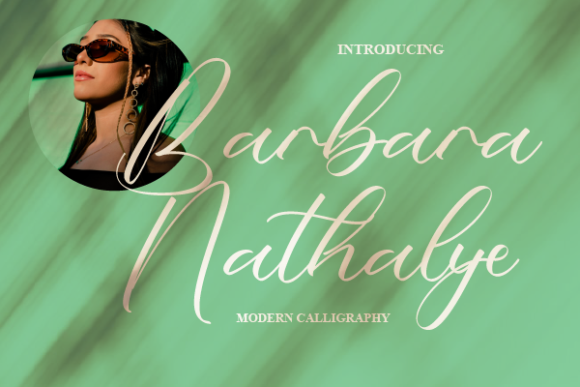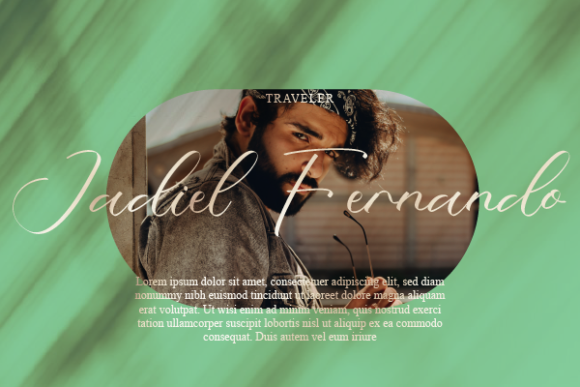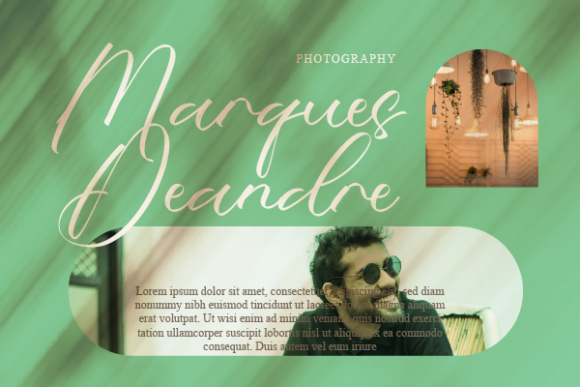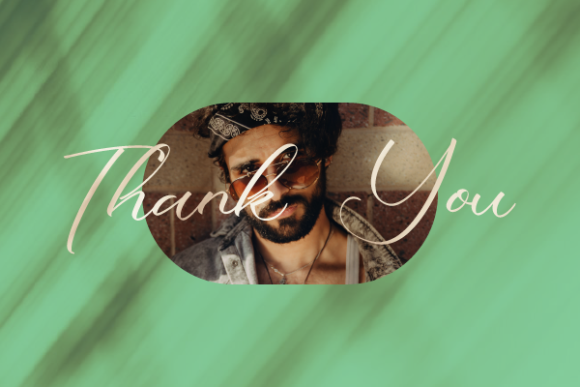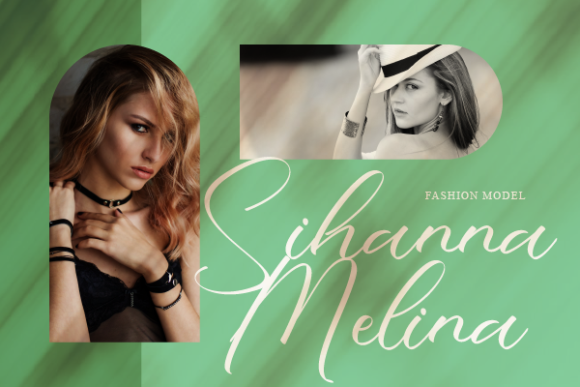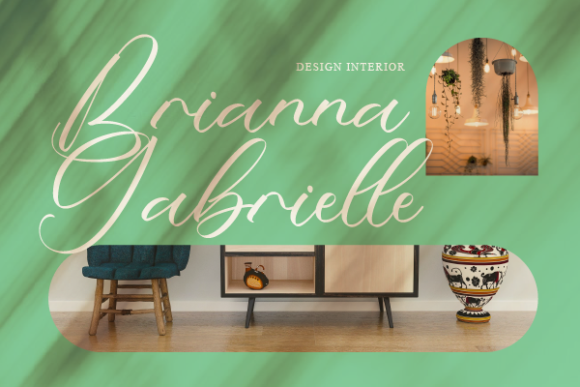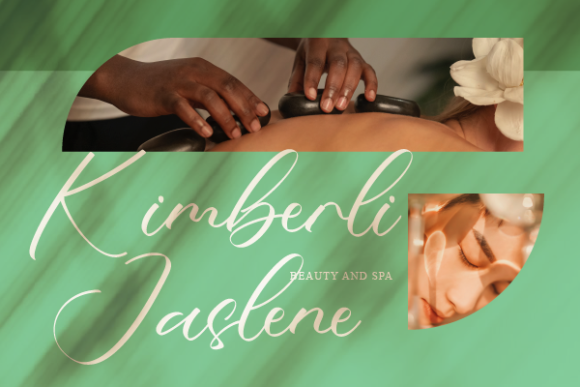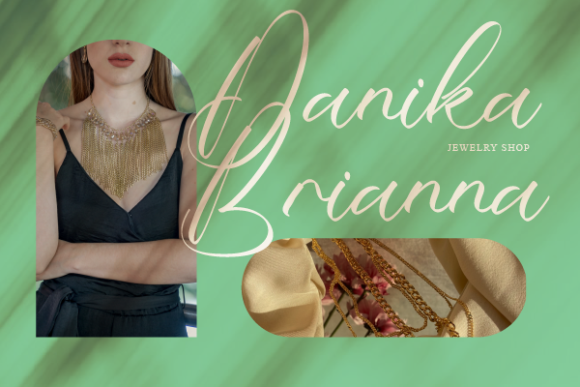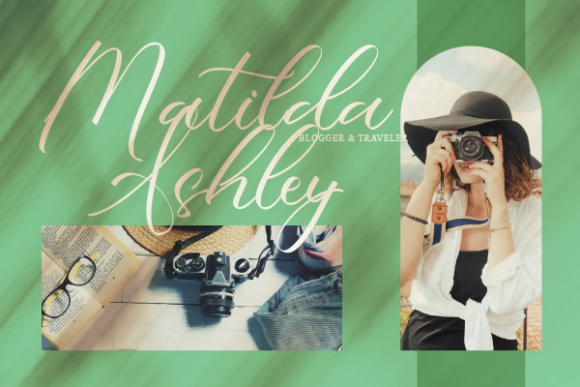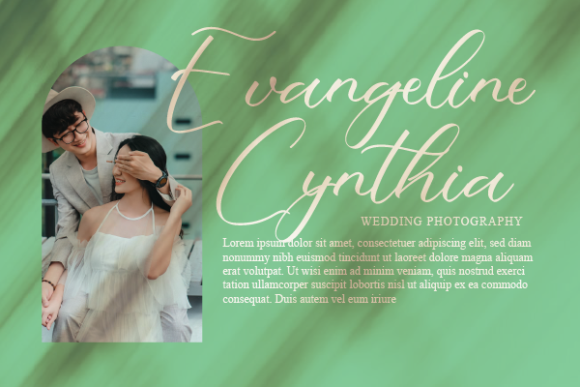
Barbara Nathalye Font
About Barbara Nathalye Font
“Introducing Barbara Nathalye, a beautiful and delicate script font that radiates elegance and sophistication. This font has been meticulously crafted for those who require a refreshing and stunning aesthetic in their designs.
Barbara Nathalye is not just a font; it’s a testament to the beauty of handwritten script, bringing a touch of personal charm to any project it graces. Its delicate curves and strokes echo the elegance of traditional calligraphy, while its modern design makes it perfect for a wide range of applications.
Whether you’re designing a logo for a high-end brand, creating invitations for a posh event, or simply adding a touch of class to your website, Barbara Nathalye is the font for the job. Its lovely and delicate nature makes it a great choice for those who want their designs to stand out and leave a lasting impression.
In conclusion, Barbara Nathalye is more than just a pretty face. It’s a powerful tool that can help you create stunning, SEO-friendly content. It’s a font that was crafted with care, designed to deliver the results you want. So why wait? Start creating with Barbara Nathalye today, and see the difference it can make in your work.”